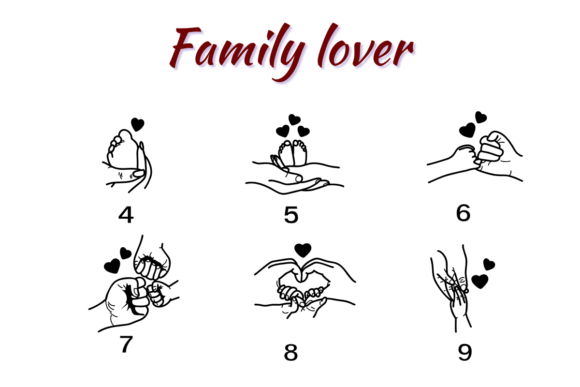
Family Lover Font
Family Lover is a cute dingbat font with a lovely theme with a sketch style. This font can enhance your creative projects such as wedding invitations, DIY, crafts, decorations, logos, and many other creative ideas.